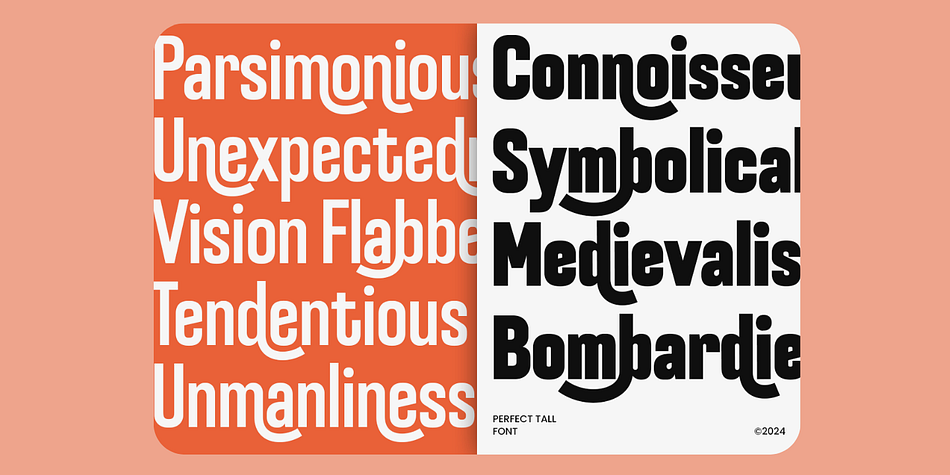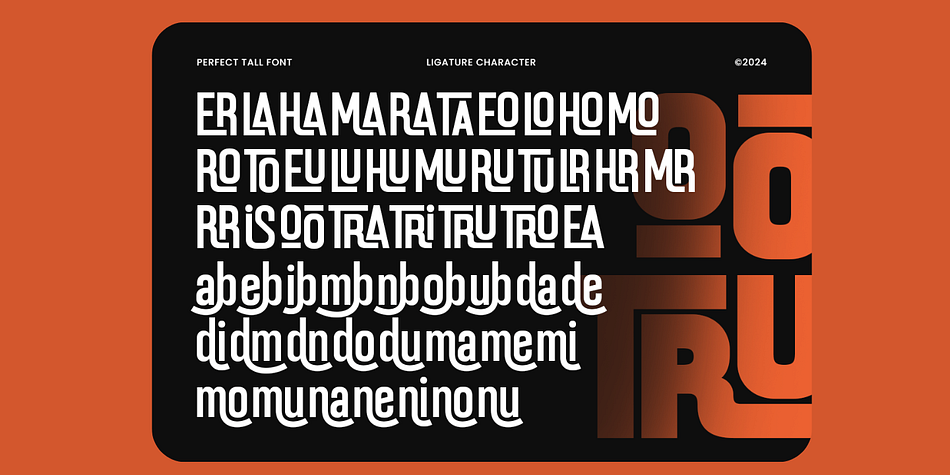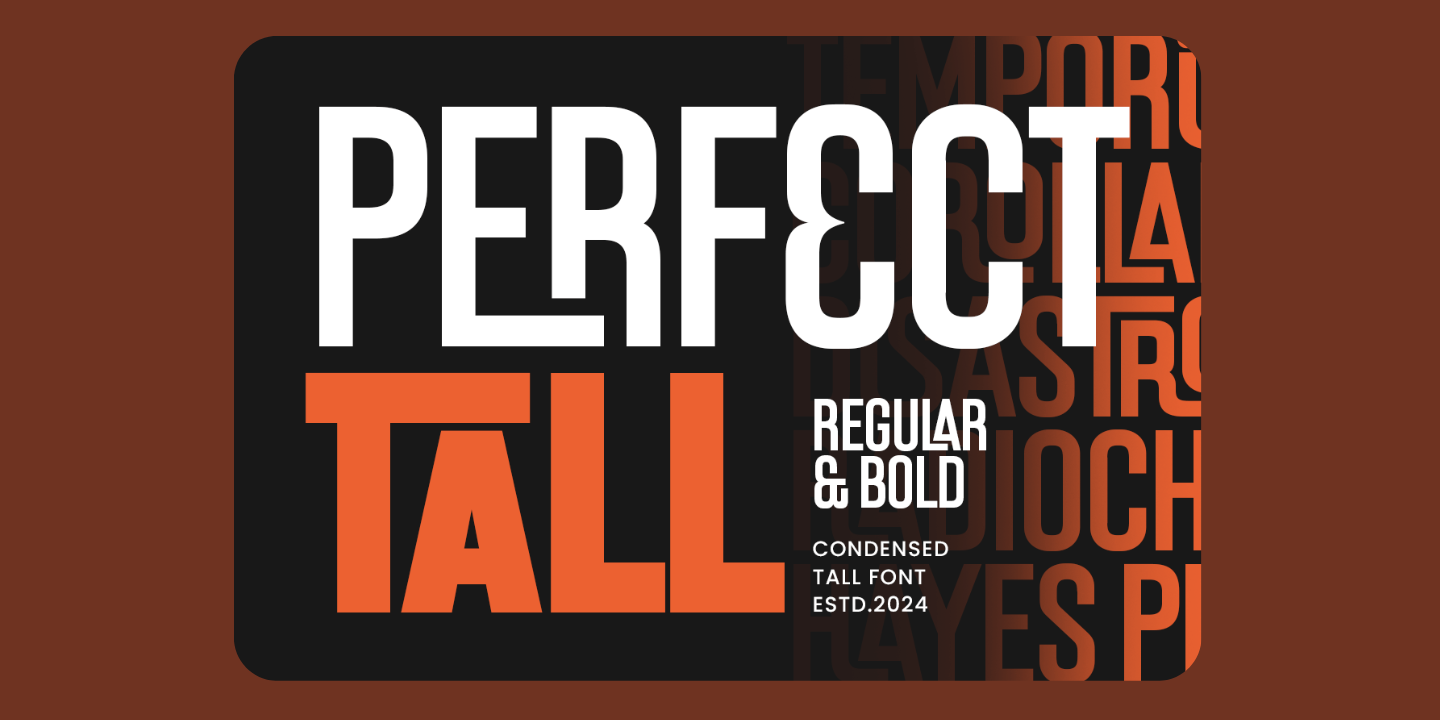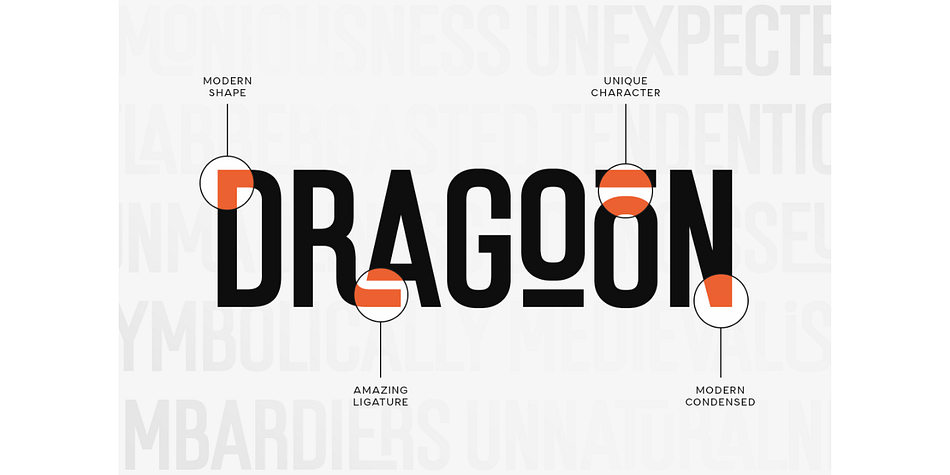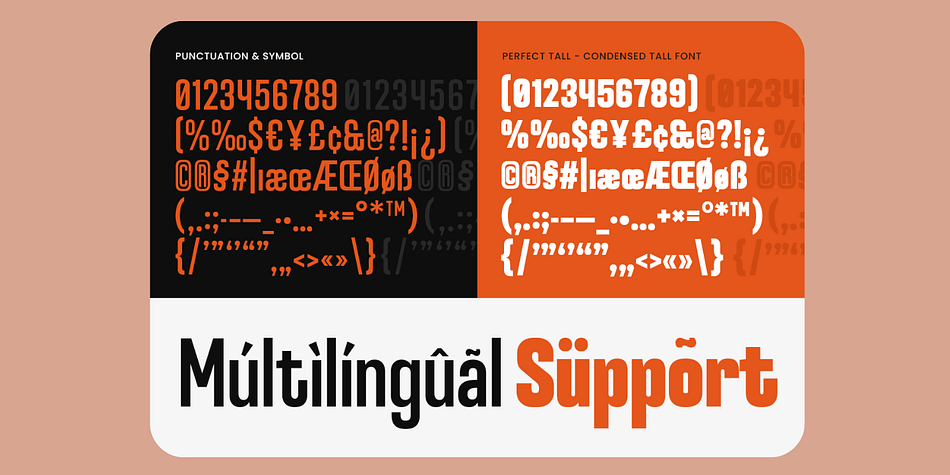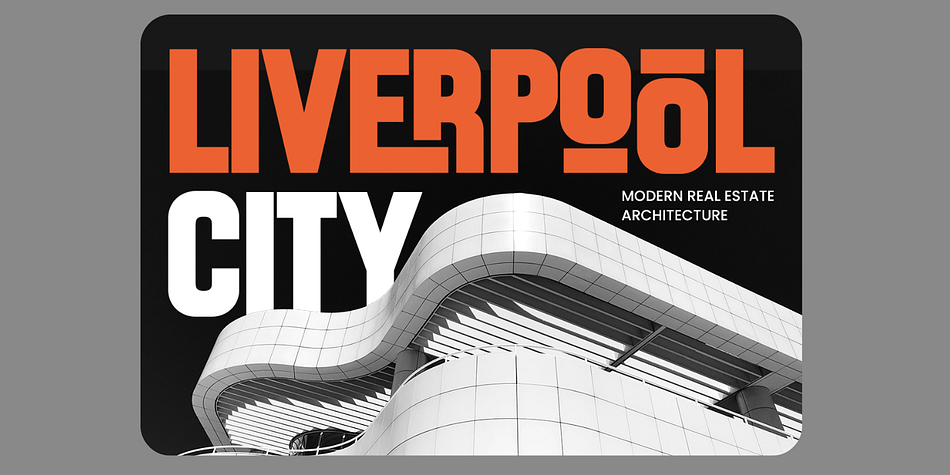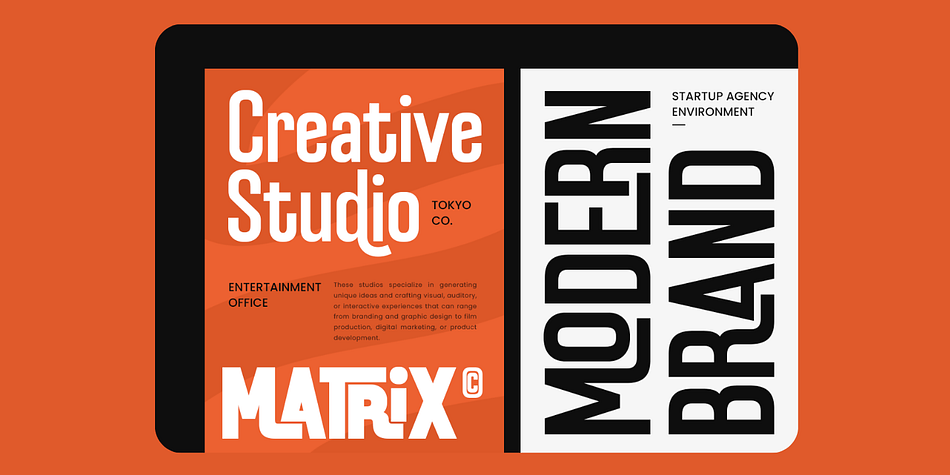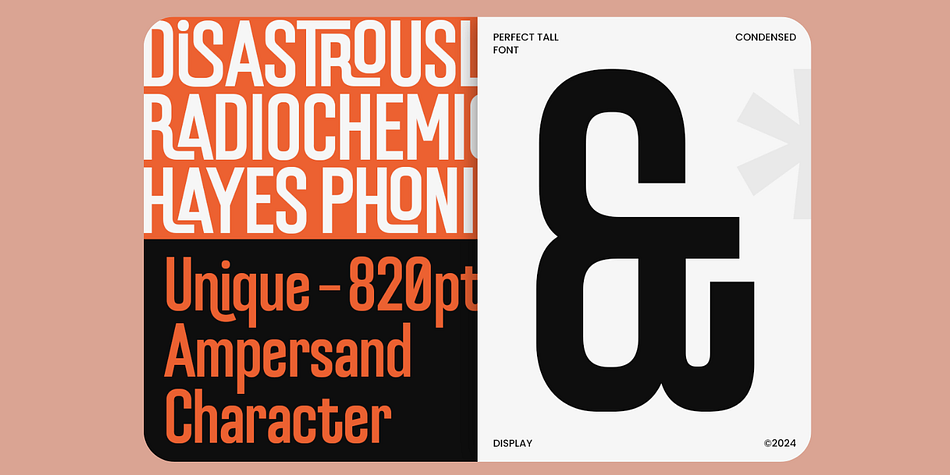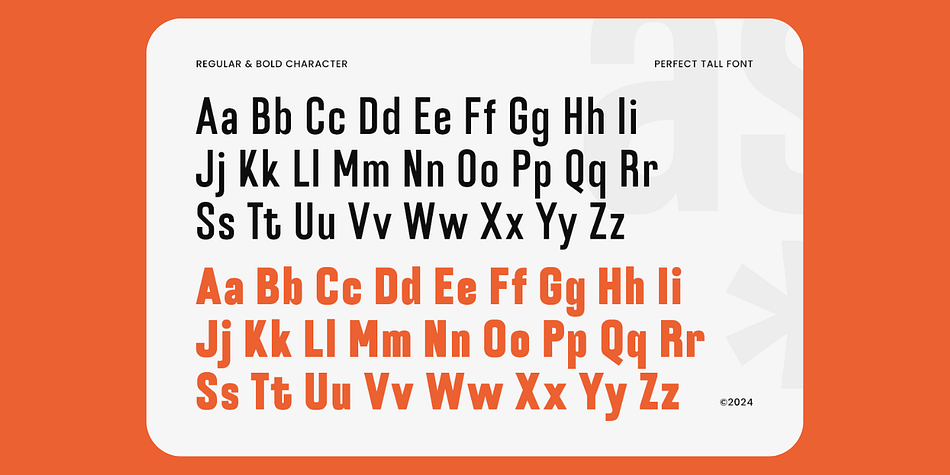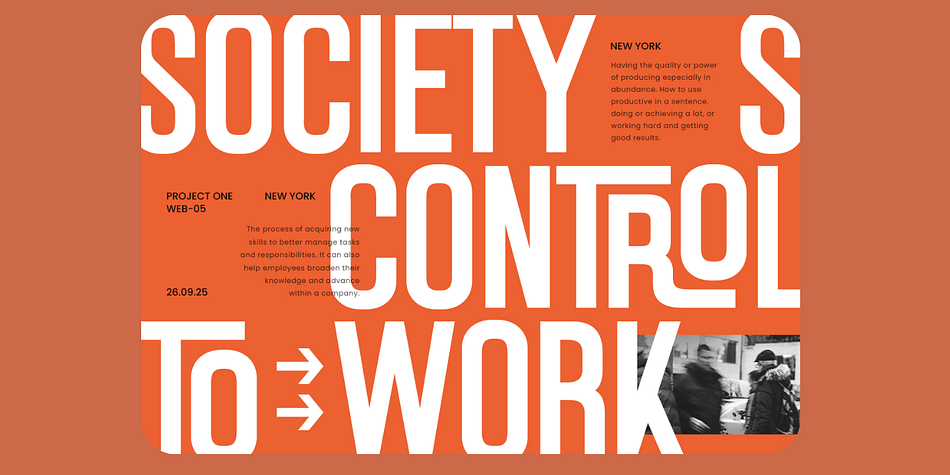
Perfect Tall – Condensed Tall Font
Perfect Tall is a sleek, condensed typeface designed to bring height, style, and sophistication to your typography. With its elongated letterforms and minimalist structure, this font is perfect for bold headlines, elevated branding, and clean editorial layouts. Its tall and narrow design adds an elegant yet commanding touch to any project, ensuring that your message stands tall and grabs attention.
Whether you’re crafting a fashion magazine spread, designing a striking logo, or developing stylish marketing assets, Perfect Tall provides the versatility and visual presence to set your work apart.
✿ Key Features:
Tall & Condensed Design: Elongated letterforms designed to create strong visual impact and save space.
Ligature Support: Includes beautiful ligatures for refined, custom-looking typography.
Dual Style Options: Comes in both Regular and Bold versions for added versatility.
Complete Character Set: Includes uppercase, lowercase, numerals, punctuation, and symbols.
OpenType Features: Enhanced with stylistic alternatives and modern typographic tools.
Multilingual Support: Supports an extensive range of languages for global design use.
✿ Perfect For:
Fashion & Lifestyle Branding: Ideal for lookbooks, campaign headlines, and logo designs.
Editorial & Magazine Layouts: Add sophistication and clarity to article titles and covers.
Posters & Advertising: Create eye-catching, vertical-oriented designs with bold messaging.
Web & Digital Media: Enhance UI/UX with a clean and space-efficient typeface.